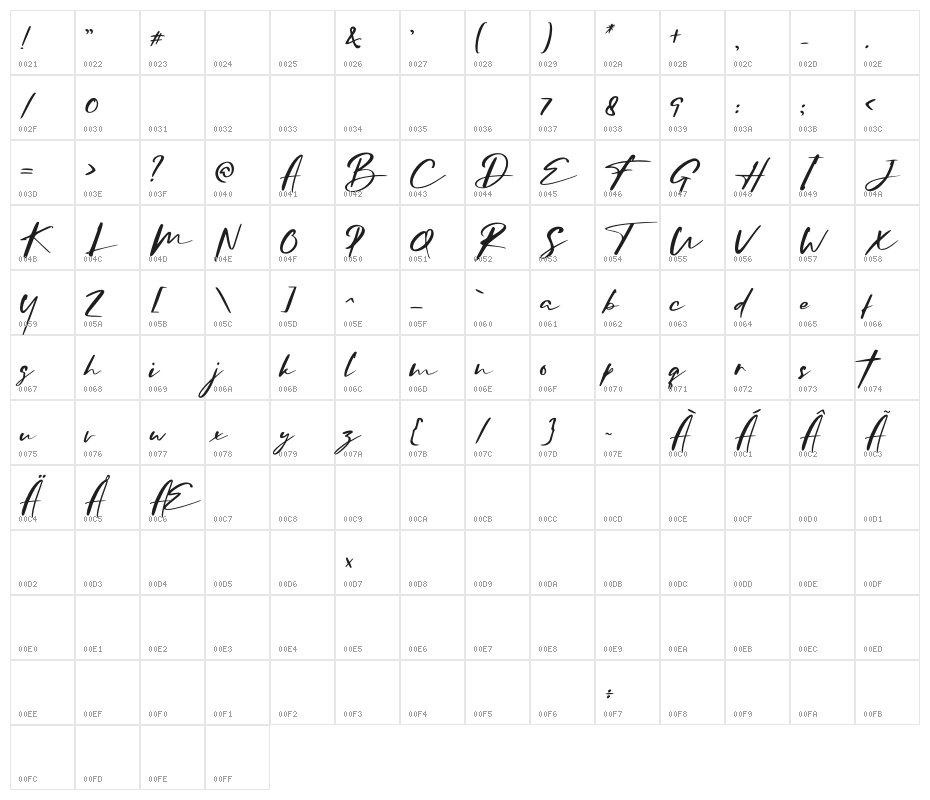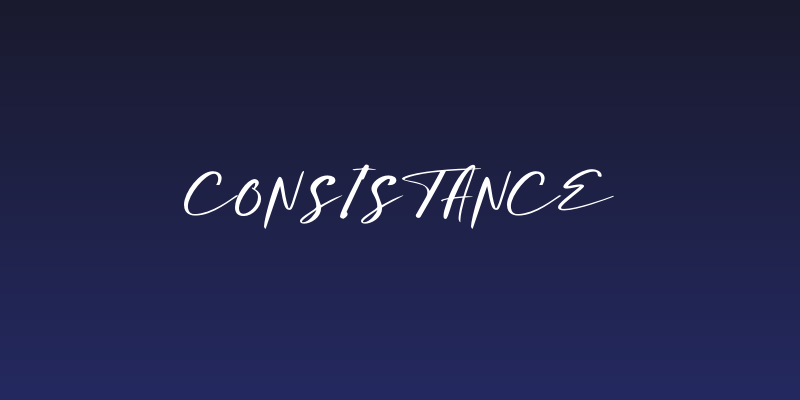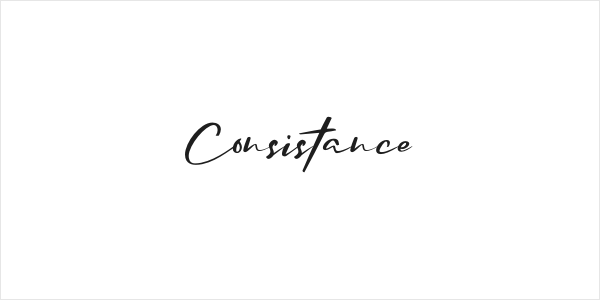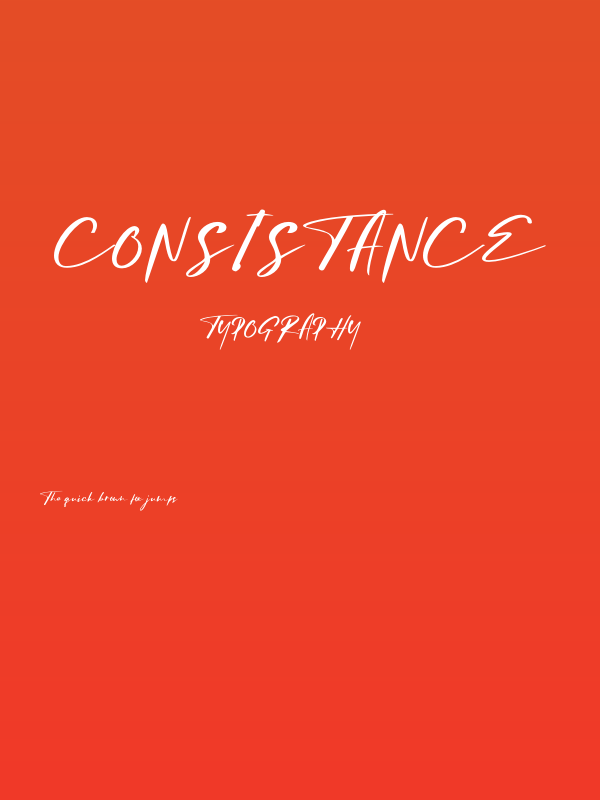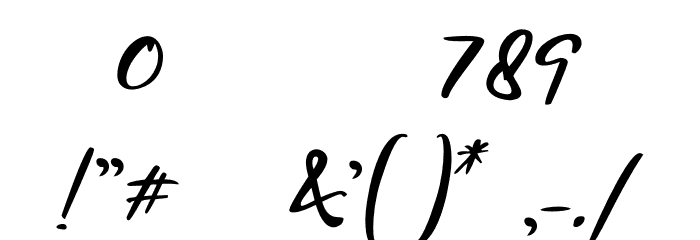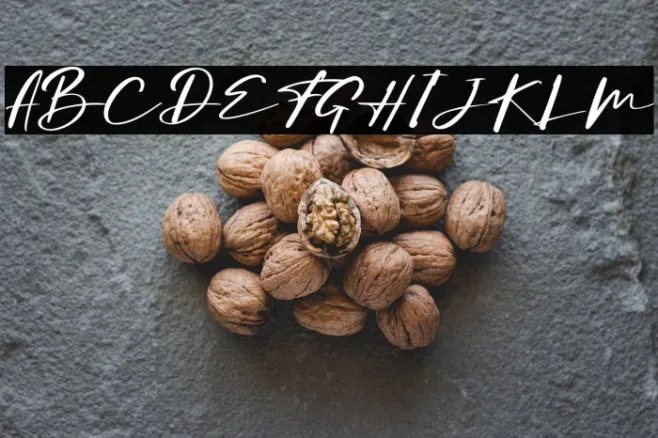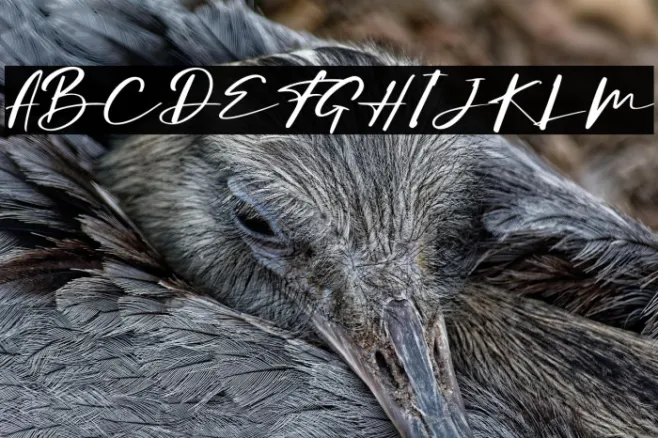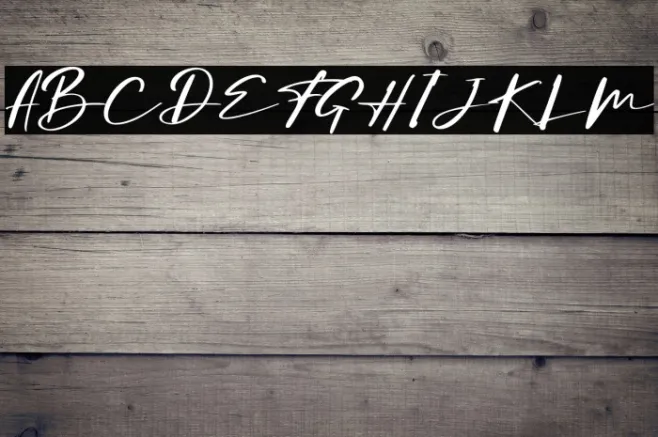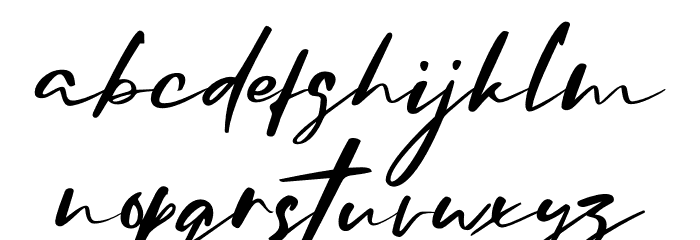
Consistance Font
Consistance Description
This font exhibits a dynamic and fluid handwritten style, characterized by its elegant and flowing script. The uppercase letters are slightly slanted, with a consistent stroke width that gives a sense of movement and grace. The lowercase letters maintain a cohesive look with smooth curves and a natural, organic feel. The numerals are bold and slightly larger, ensuring readability while maintaining the font's overall aesthetic. Special characters are thoughtfully designed to complement the letters, adding versatility to the font's usage. This font's artistic flair makes it suitable for creative projects that require a personal touch.
| Use Case | Logos, Invitations, Social Media |
| Proposed Projects | Ideal for wedding invitations, greeting cards, branding, and social media graphics. |